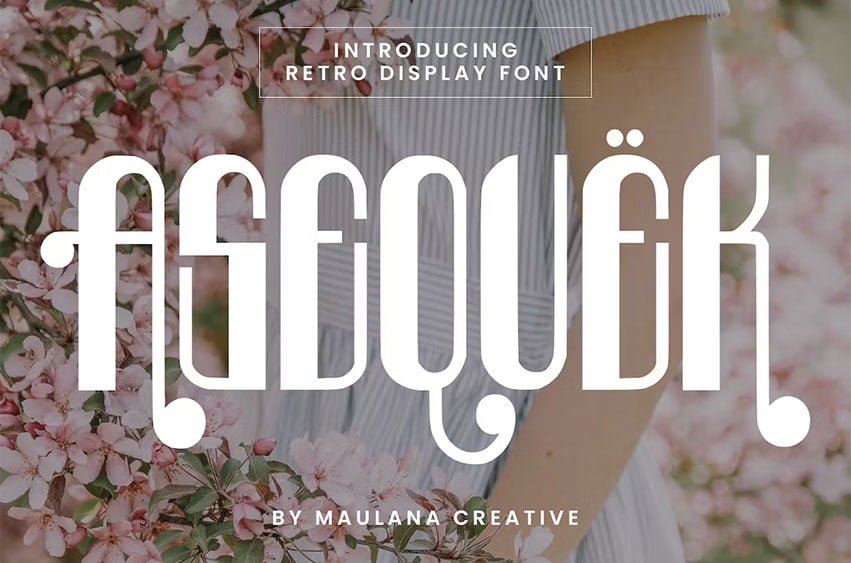
Asequek Font Retro Display Font. Light stroke, fun character with a bit of ligatures and alternates. To give you an extra creative work. Asequek font support multilingual more than 100+ language. This font is good for logo design, Social media, Movie Titles, Books Titles, a short text even a long text letter and good for your secondary text font with script or serif. Make a stunning work with Asequek font.